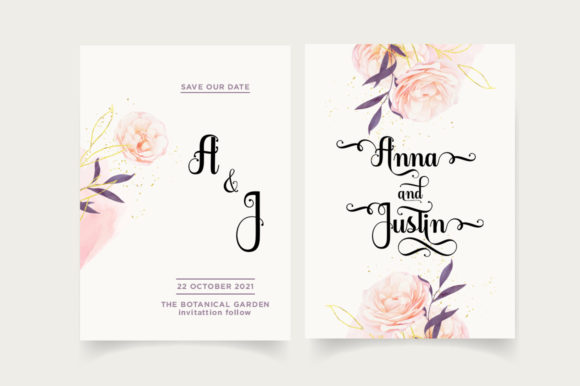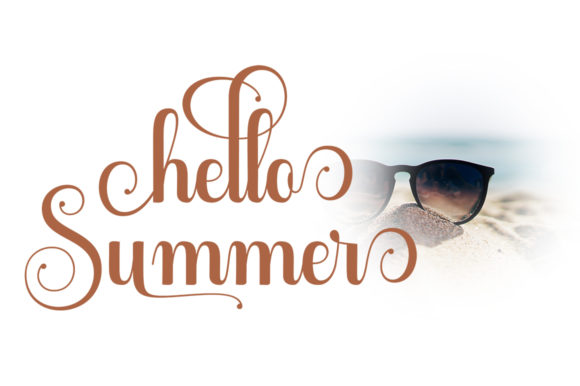
Gloritta Font
db-ku.com - Script & Handwritten -- Gloritta is a dazzling script font. This font is neatly crafted and highly detailed. Whatever the topic, this font will be a wonderful asset to your font library, as it has the potential to enhance any creation. This font is PUA encoded which means you can access all of the glyphs and swashes with ease!